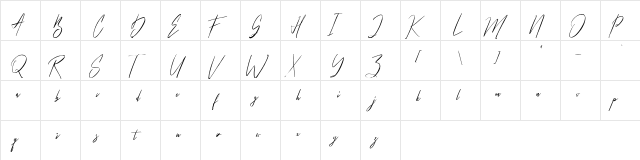
Hellicopters Brush Script
| Style | Brush Script |
| Foundry | Maulana Creative |
Design Context for Hellicopters Typeface
Hellicopters brings a calligraphic fluidity to the page — its connecting strokes and expressive curves give it an unmistakably human quality.